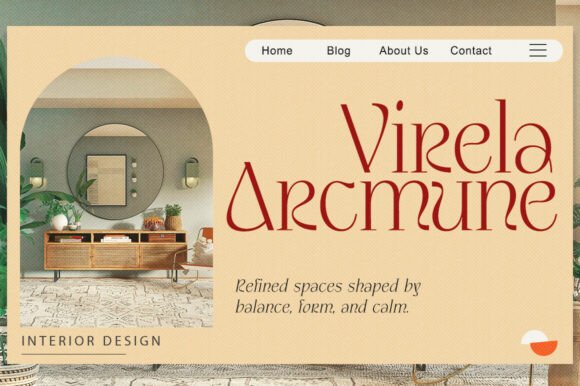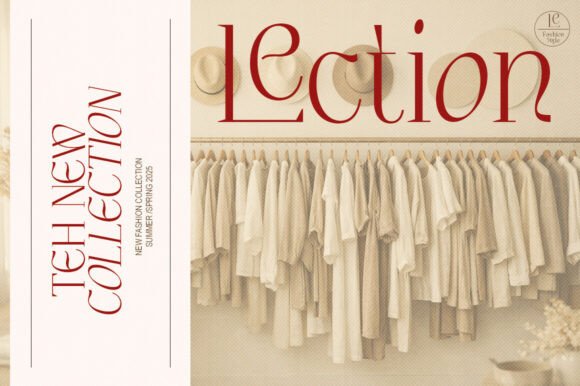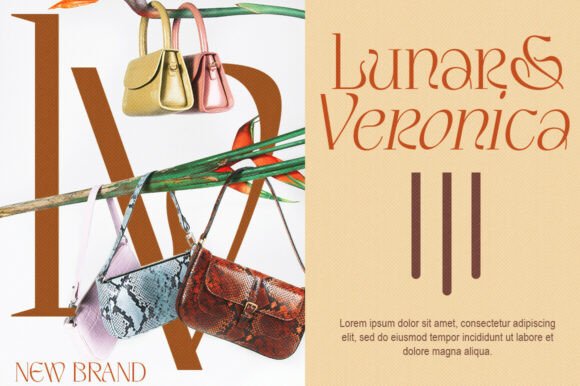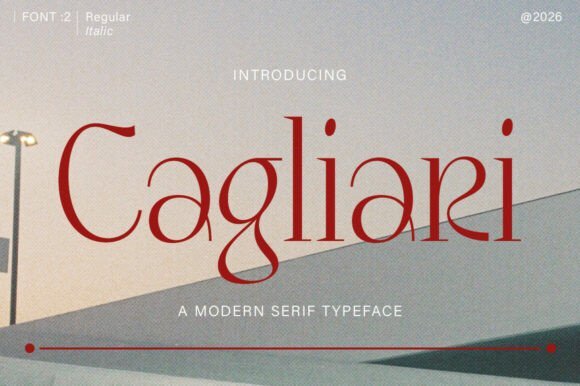
Introduction to Cagliari Font
The Cagliari font is a contemporary masterpiece of modern serif design, blending traditional letterforms with avant-garde flair.
Characterized by its sharp serifs and unexpected, fluid curves in letters like the ā€œgā€ and ā€œa,ā€ the Cagliari typeface offers a fresh take on editorial typography It bridges the gap between classic legibility and artistic expression, making it perfect for high-end web design and print media.